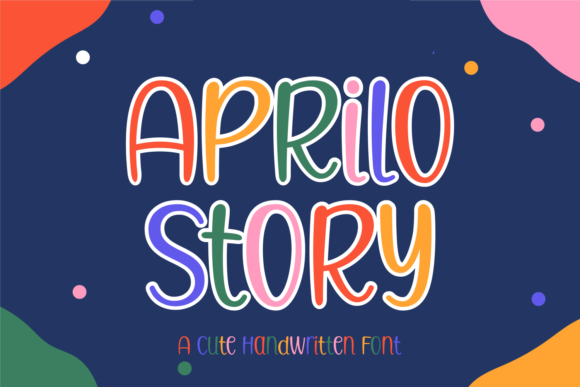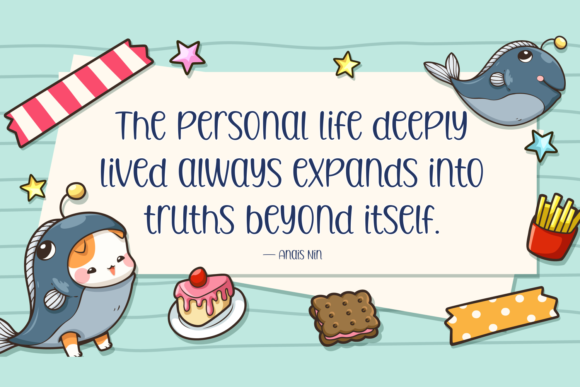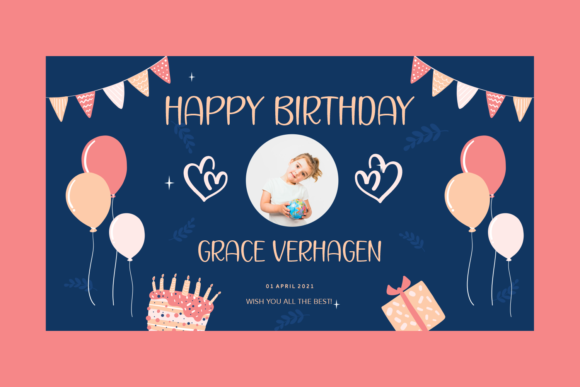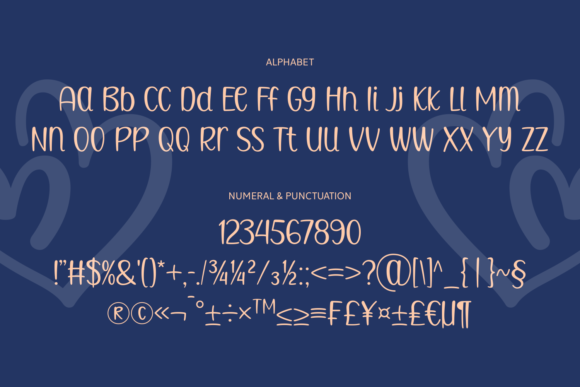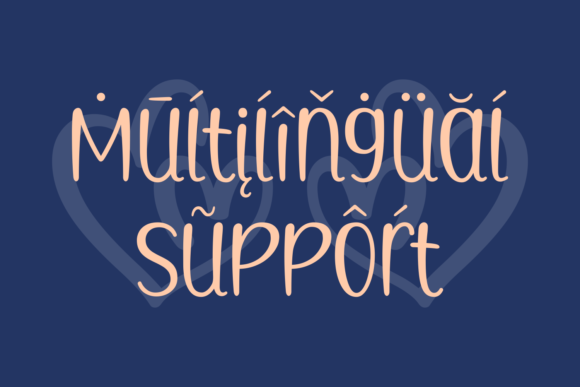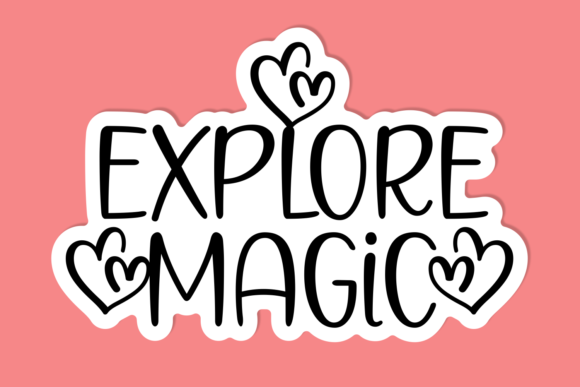
Aprilo Story Font
About Aprilo Story Font
Aprilo Story is a delightful and playful handwritten font that brings a cheerful and relaxed vibe to your designs. With its casual and carefree style, this font is a perfect choice for children-themed projects, adding a touch of fun and whimsy.
The jolly and vibrant nature of Aprilo Story makes it an ideal companion for designs aimed at children. Whether you’re working on a poster, book cover, greeting card, or any other design that targets a young audience, this font will infuse your creations with a sense of joy and playfulness.
One of the key features of Aprilo Story is its relaxed theme, which perfectly complements its casual style. The organic and free-flowing letterforms give the font a hand-drawn feel, as if it was written by a child with a colorful marker. This adds a charming and approachable quality to your designs.
When combined with bright colors, Aprilo Story truly comes to life. The playful strokes and curves of the letters, along with the lively energy it exudes, create a harmonious and visually engaging composition. The font becomes a visual representation of the joy and excitement associated with childhood.
Aprilo Story allows you to explore a variety of design possibilities. It can be used in various contexts, such as children’s book illustrations, nursery decorations, party invitations, toy packaging, and much more. Its versatility makes it an excellent choice for any project where you want to evoke a sense of youthful energy and happiness.
Whether you’re designing for a playful brand or capturing the essence of childhood in your artwork, Aprilo Story will bring a delightful touch to your creations. Its relaxed theme and casual style make it a perfect match for children-themed designs that aim to capture the imagination and spark joy.
So, embrace the whimsical and carefree nature of Aprilo Story, and let it bring a jolly and fun element to your designs. With its relaxed theme and playful style, this font will undoubtedly add a touch of delight and happiness to any project aimed at children.